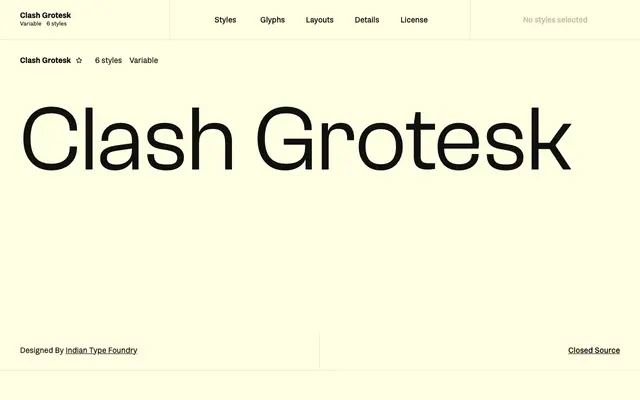
Clash Grotesk
A neo-grotesque sans from Indian Type Foundry distinguished by its unusually tight apertures, available in six weights plus a variable font.
Designed by Indian Type Foundry and released on Fontshare in 2021, Clash Grotesk takes a neo-grotesque framework and tightens the apertures to the point where letters such as 'c' appear almost closed. The six static weights from Extralight to Bold are optically monolinear, with a tall x-height, large counterforms and proportional lining figures sitting level with the capitals and ascenders. A companion family, Clash Display, covers larger-size use cases, while this text-oriented family covers 135 Latin-script languages.
Described explicitly as neo-grotesque in style, with optically monolinear strokes and a double-story 'a', though distinguished by unusually tight apertures that give it a more closed, taut character than typical grotesques.